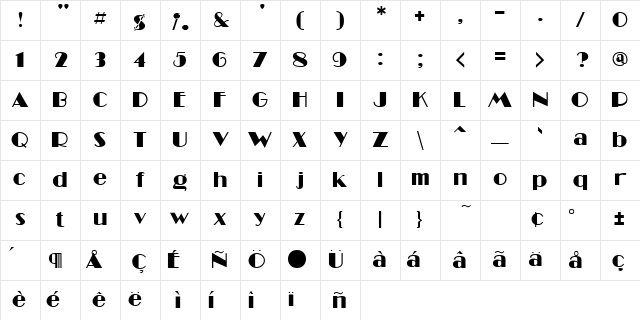
MiamiNig Regular Free Font
MiamiNig Regular
Design Context for MiamiNig
MiamiNig is a composed and adaptable typeface that performs quietly and consistently across a wide range of design contexts.